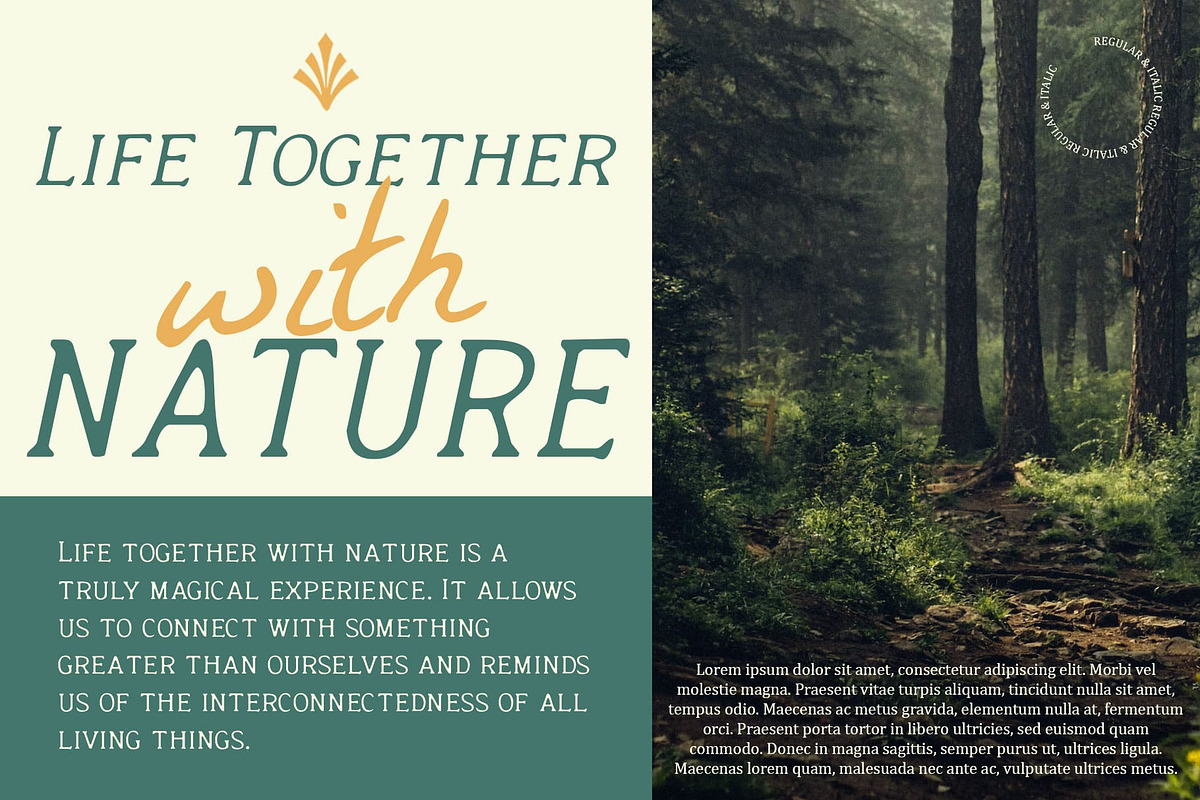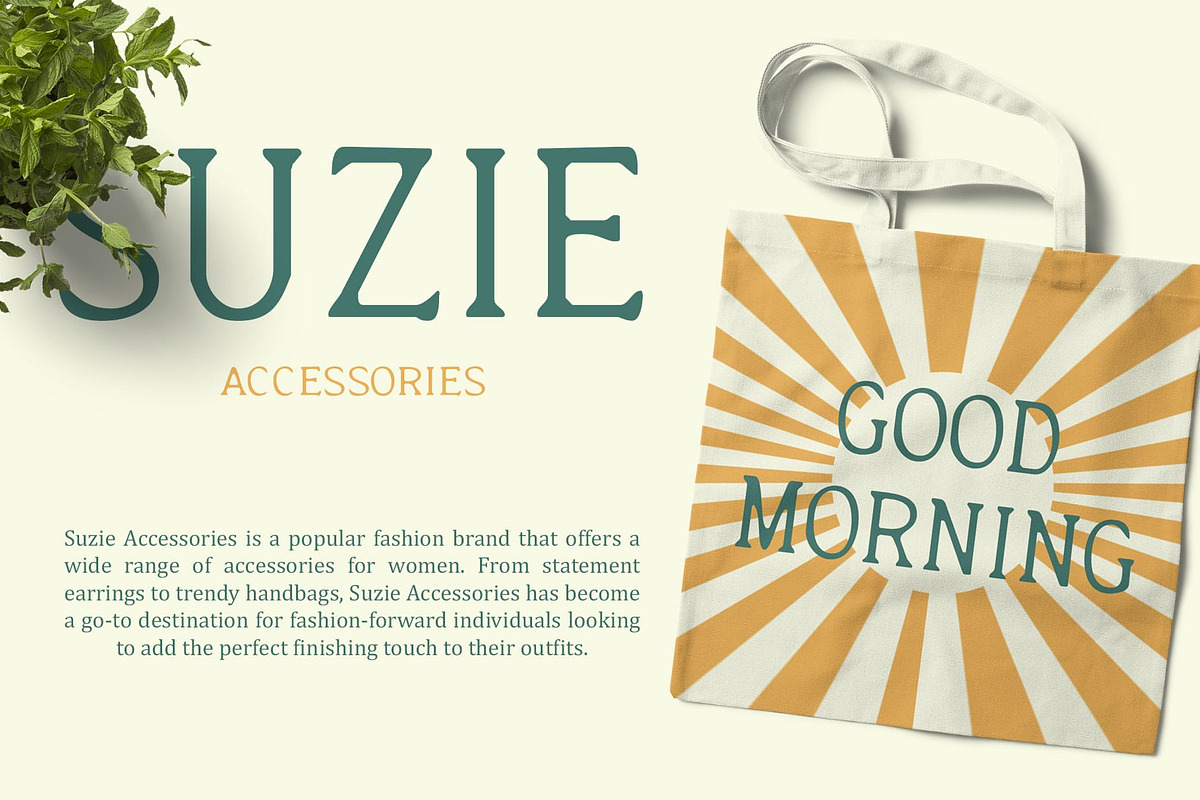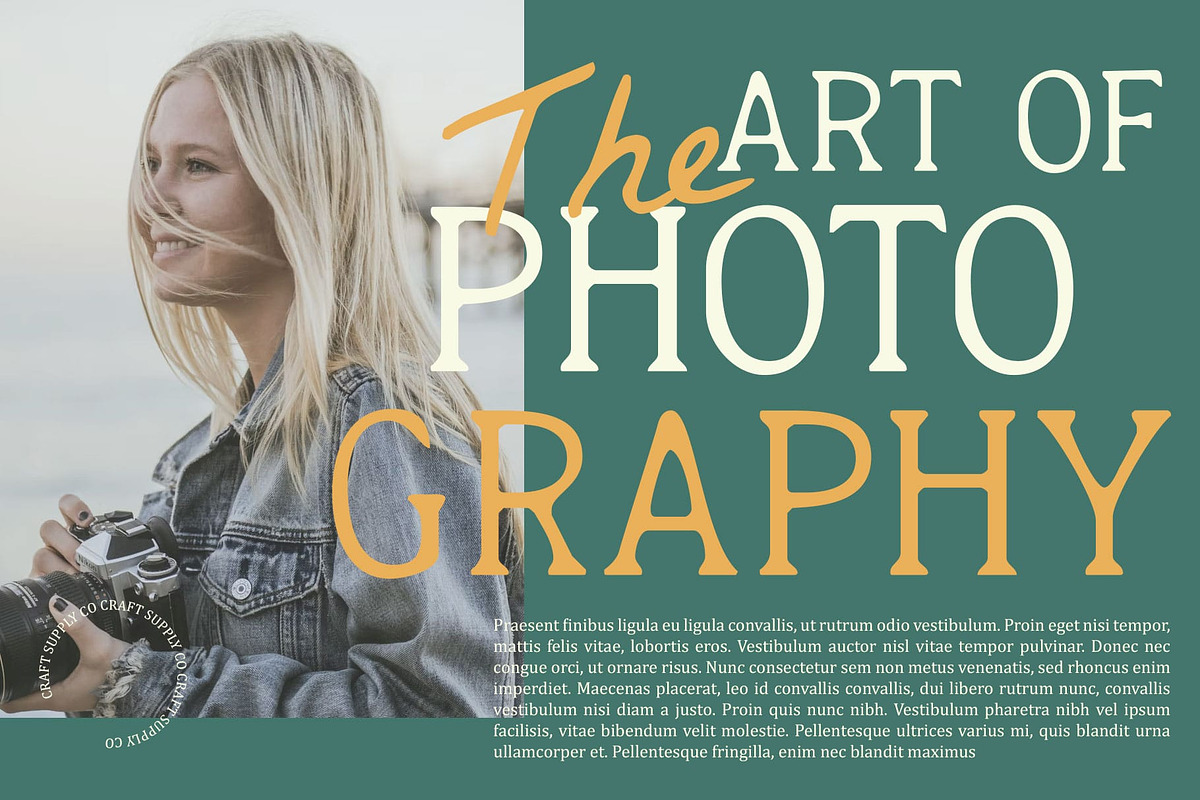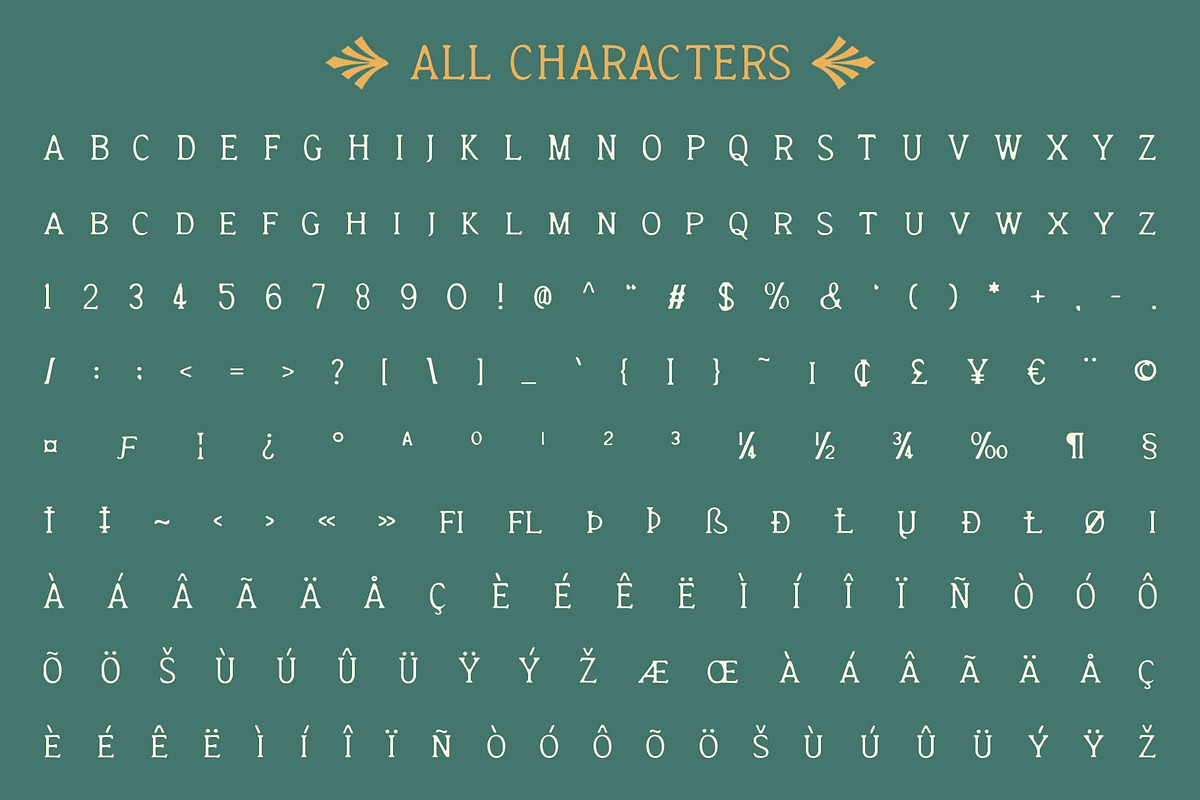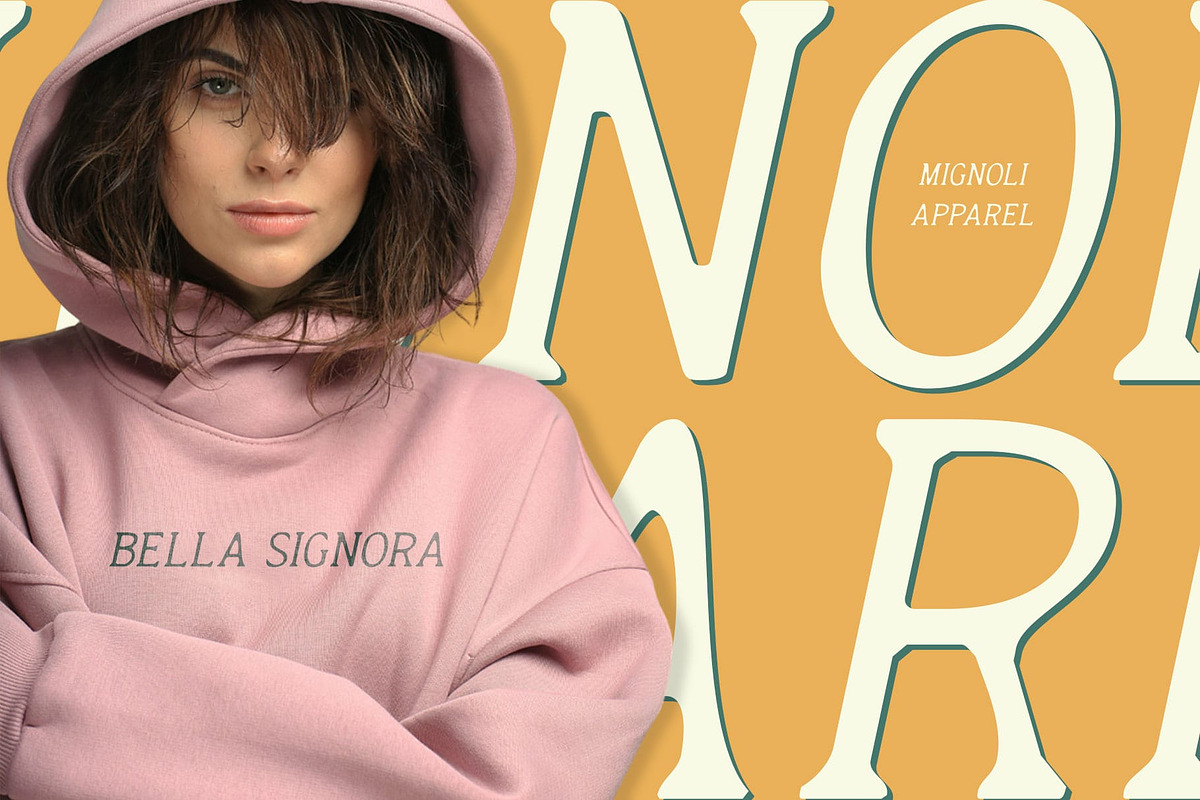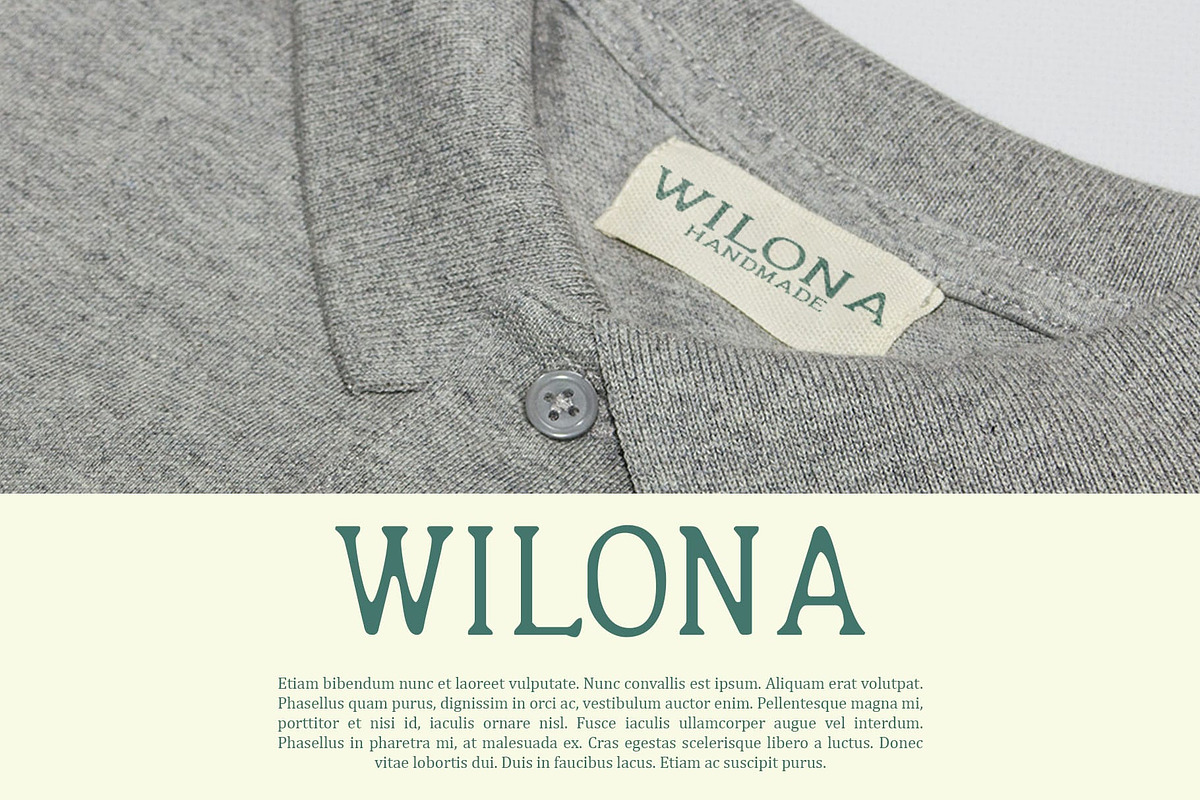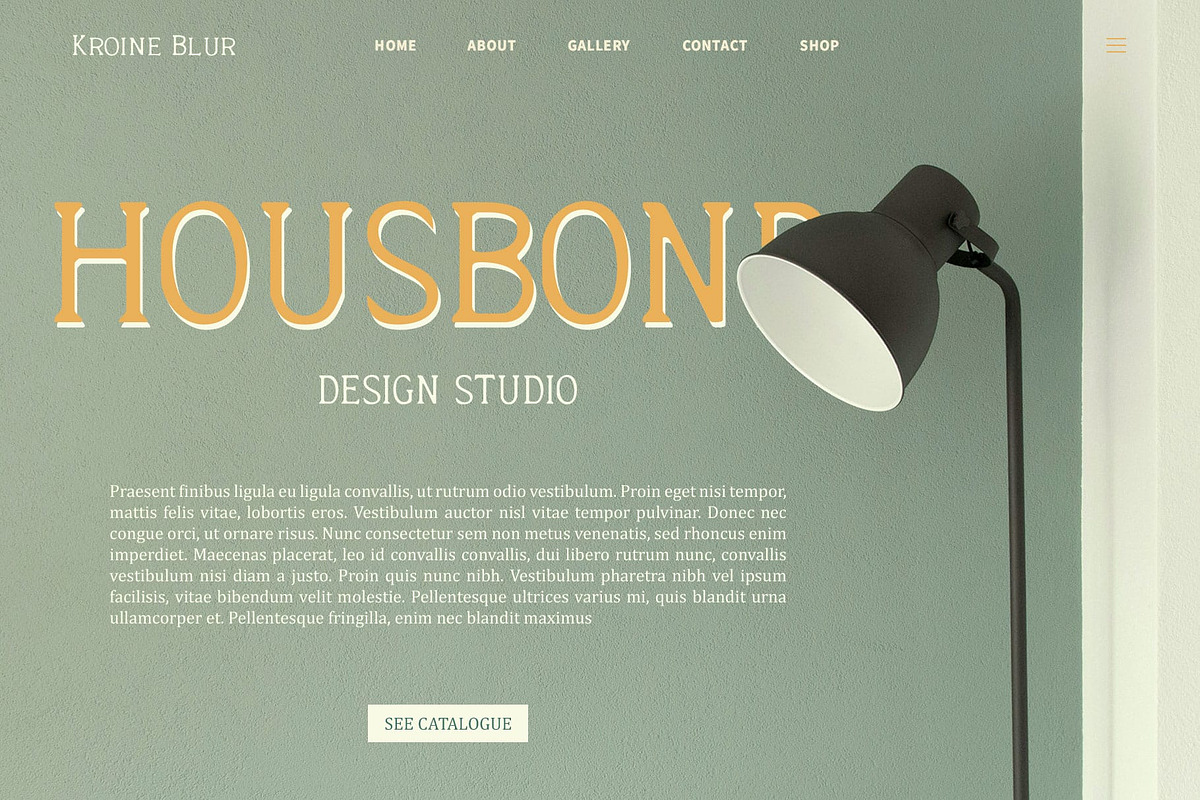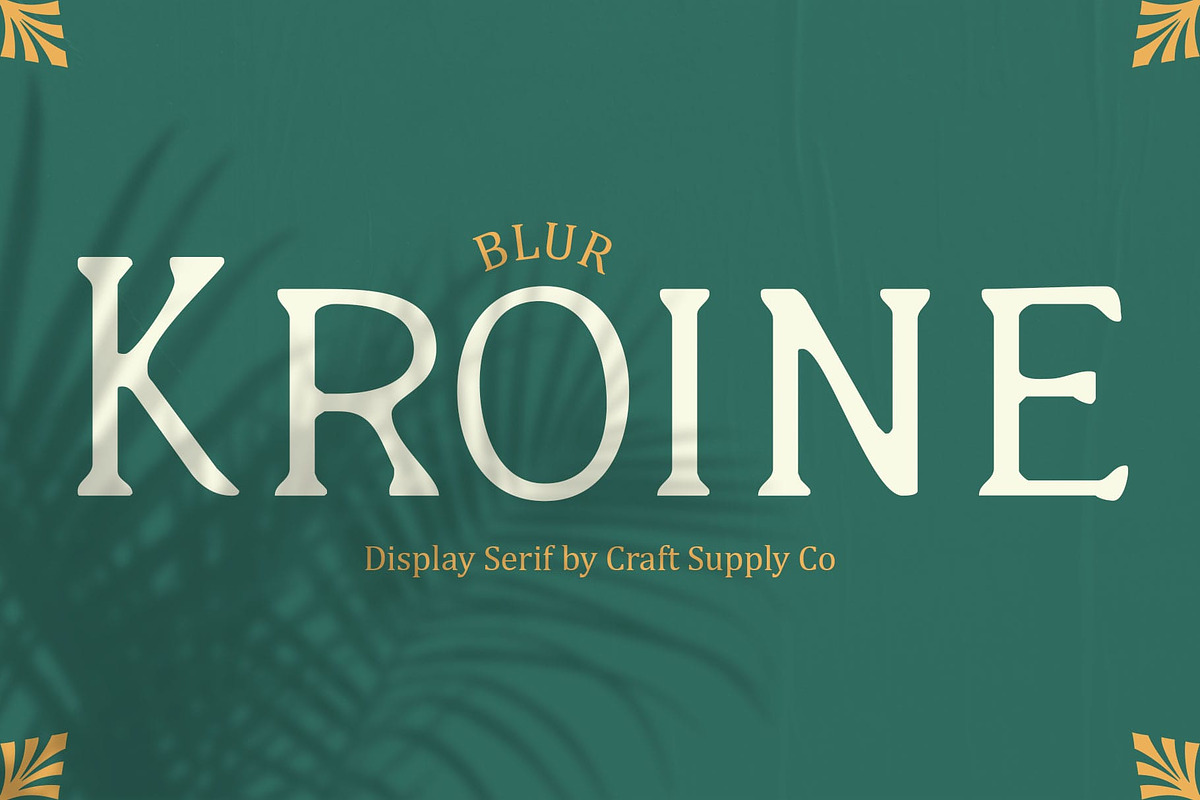
Kroine Blur
Kroine Blur: Where Elegance Blurs
Elegant Blur Serif
Kroine Blur is a modern serif font with an elegant style and a touch of blur, perfect for creative designs. Its refined design and subtle blur effect create a sophisticated and artistic look, ideal for editorial design, branding, and other projects that require a touch of elegance and creativity.
Elegant Style with a Touch of Blur
With its graceful serifs and blurred details, Kroine Blur offers a fresh take on serif fonts. The elegant style and subtle blur effect create a smooth and balanced appearance, adding a touch of refinement to any design project.
Perfect for Creative Designs
Whether you’re designing a sleek magazine layout or creating a stylish logo, Kroine Blur is sure to make an impression. Its elegant style and blur effect make it perfect for designs that demand attention and convey a sense of sophistication and artistic flair.
Versatile and Easy to Use
Despite its distinctive appearance, Kroine Blur is versatile and easy to use. The font works well in both large and small sizes, making it suitable for a variety of applications, from headlines and banners to body text and more. With its blend of elegance and blur effect, Kroine Blur adds a unique and artistic touch to any design.